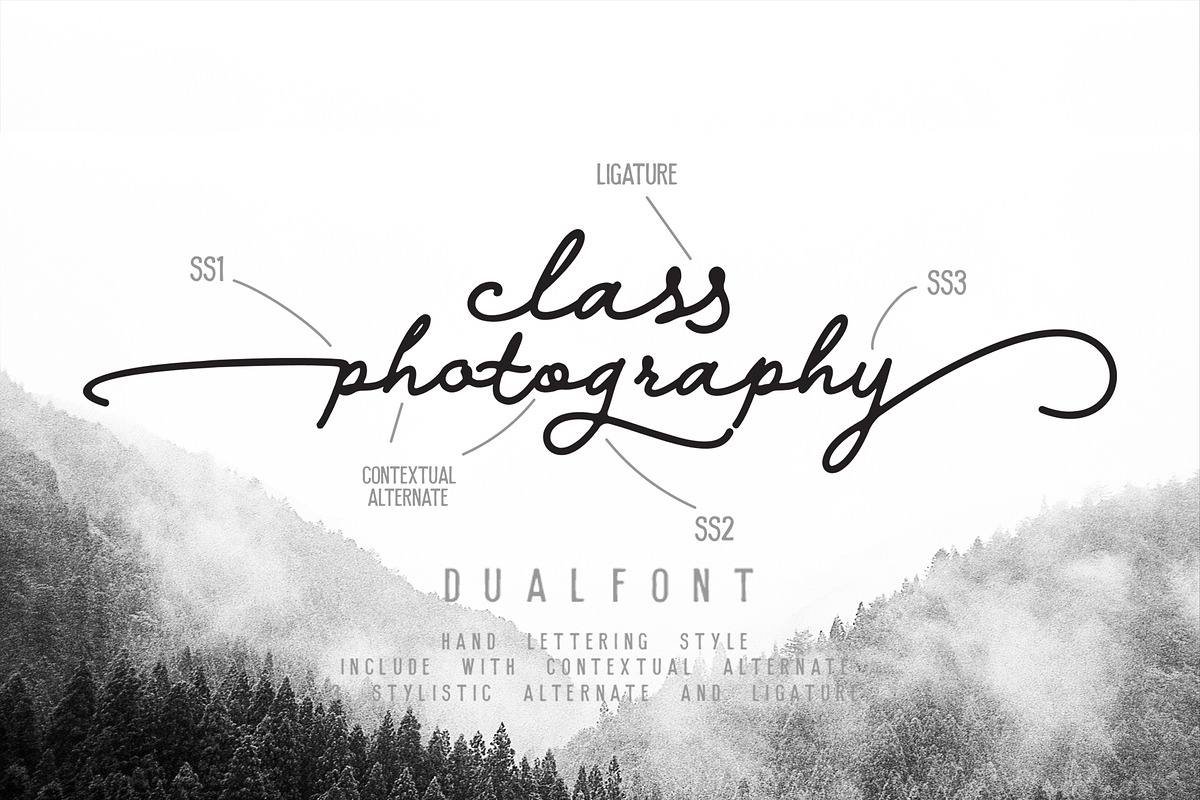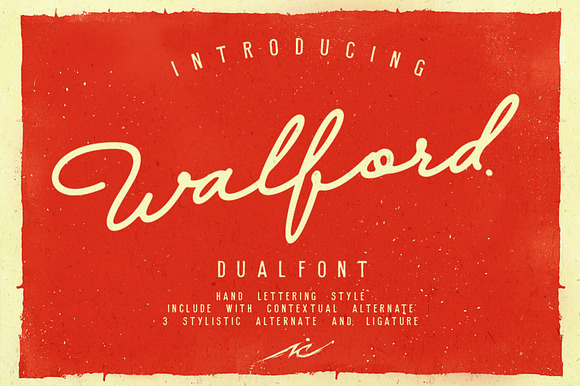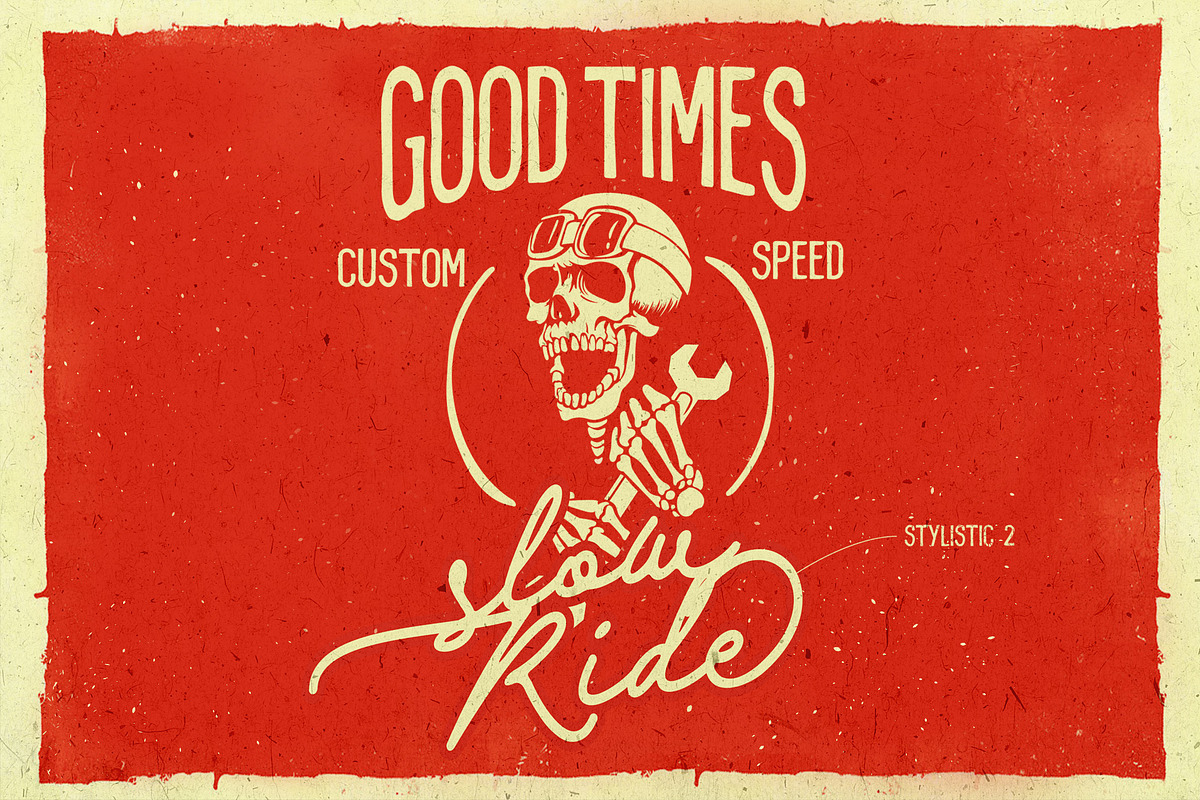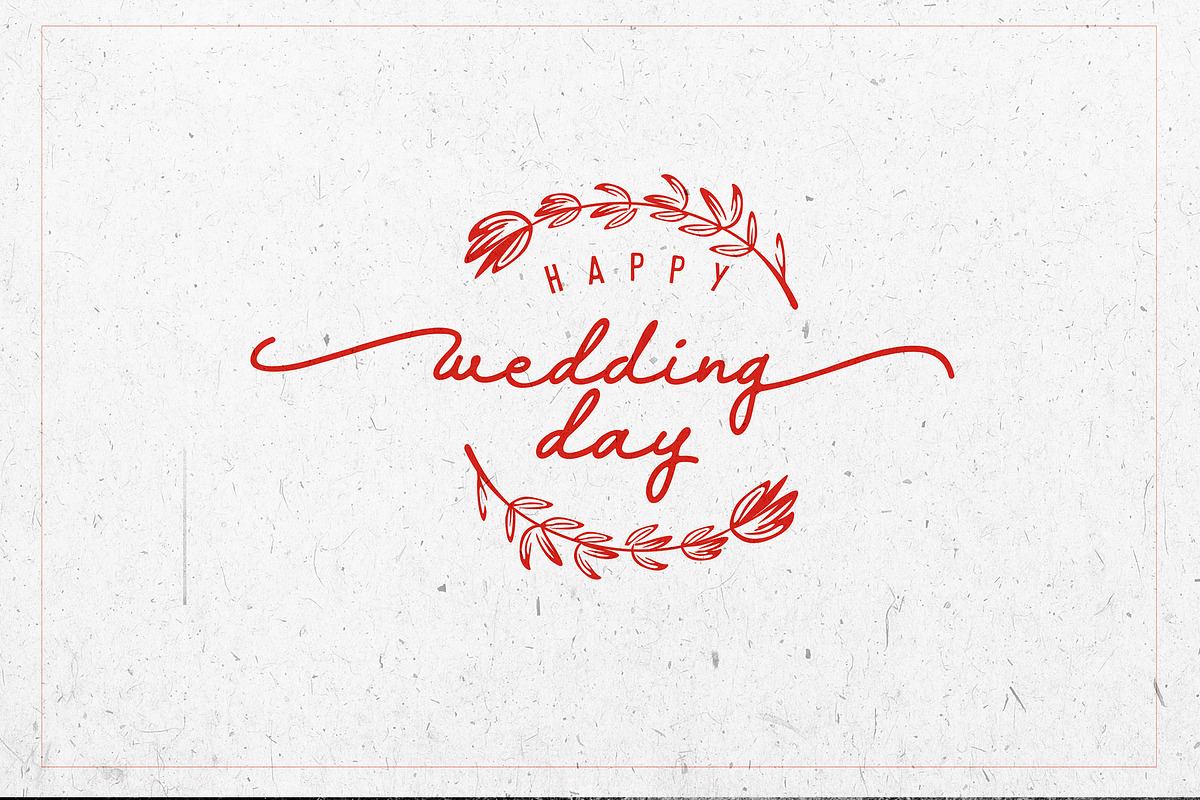
Walford Dual Font
Walford is a type of handlettering font made with several advantages that can add different nuances to your work, this font is suitable for wedding cards, logos, logotypes, letters, covers etc.
Stylishtic set 1 a - z
Stylishtic set 2 a - z
Stylishtic set 3 a - z
- WALFORD FONT FEATURE Uppercase Lowercase Numeral Functional Alternate Stylishtic set 1 a - z Stylishtic set 2 a - z Stylishtic set 3 a - z L